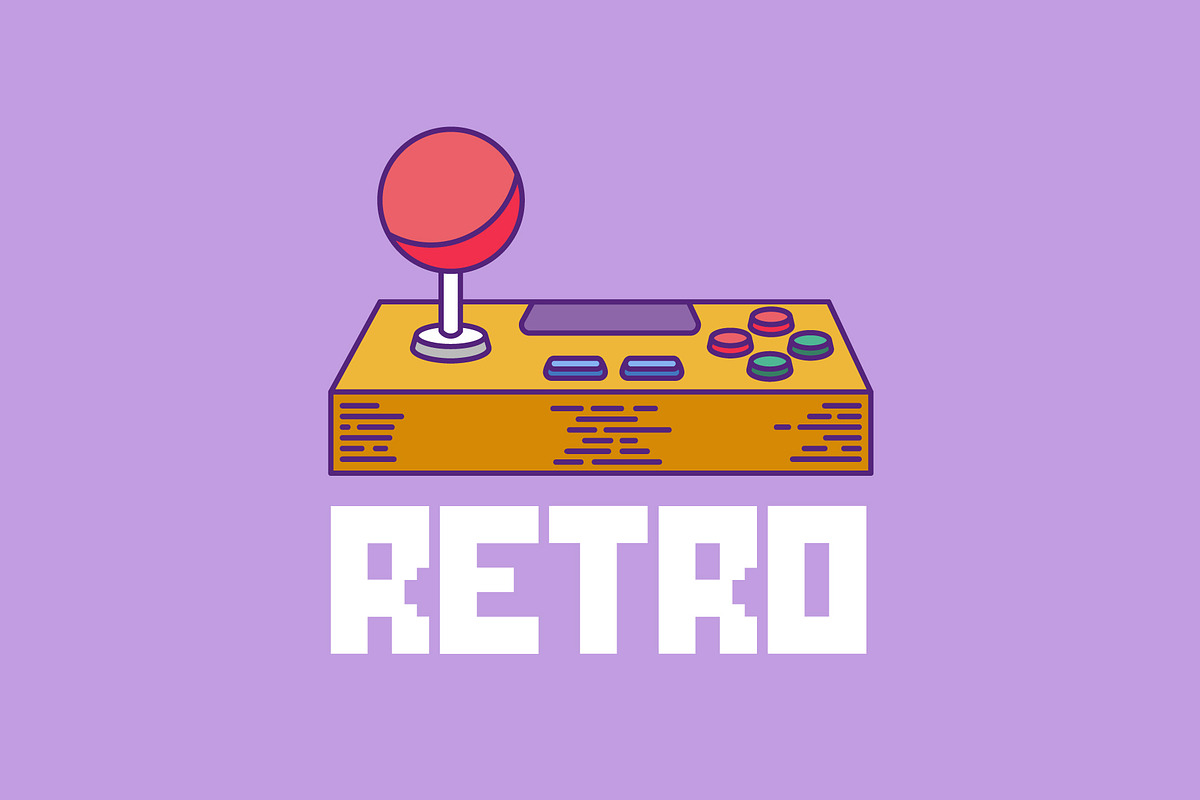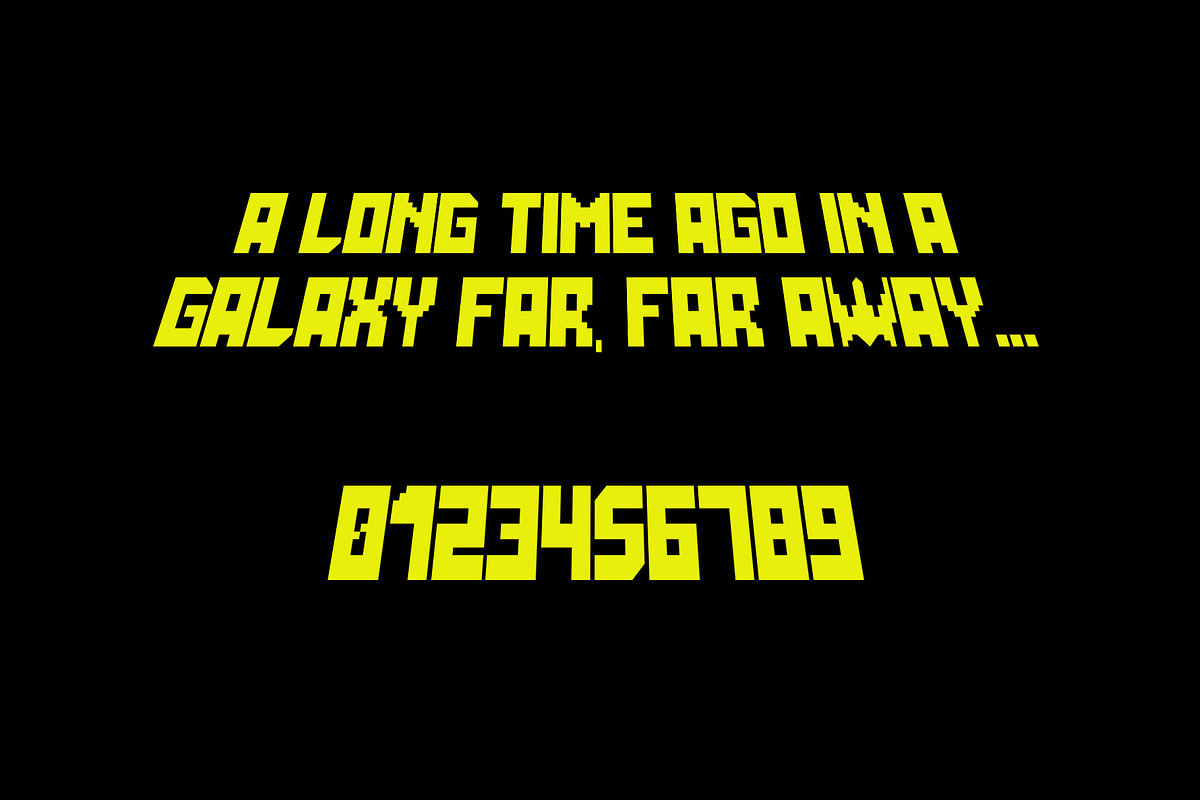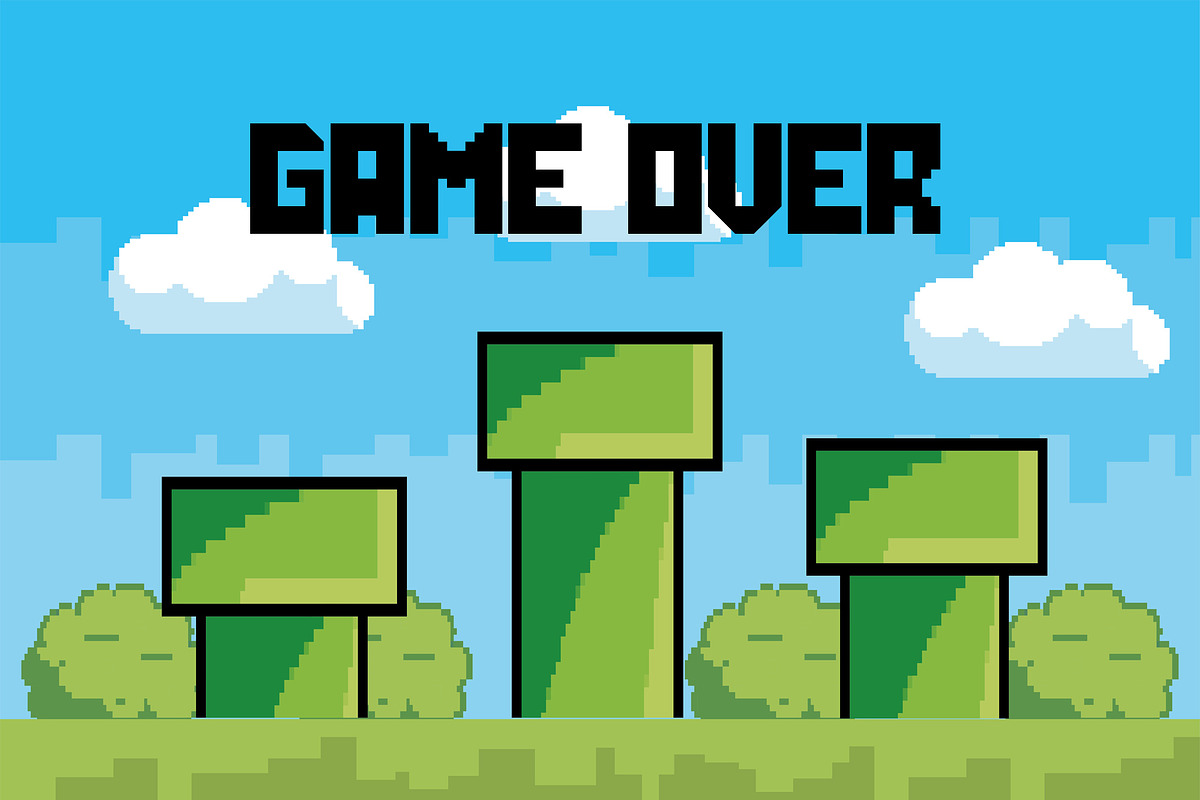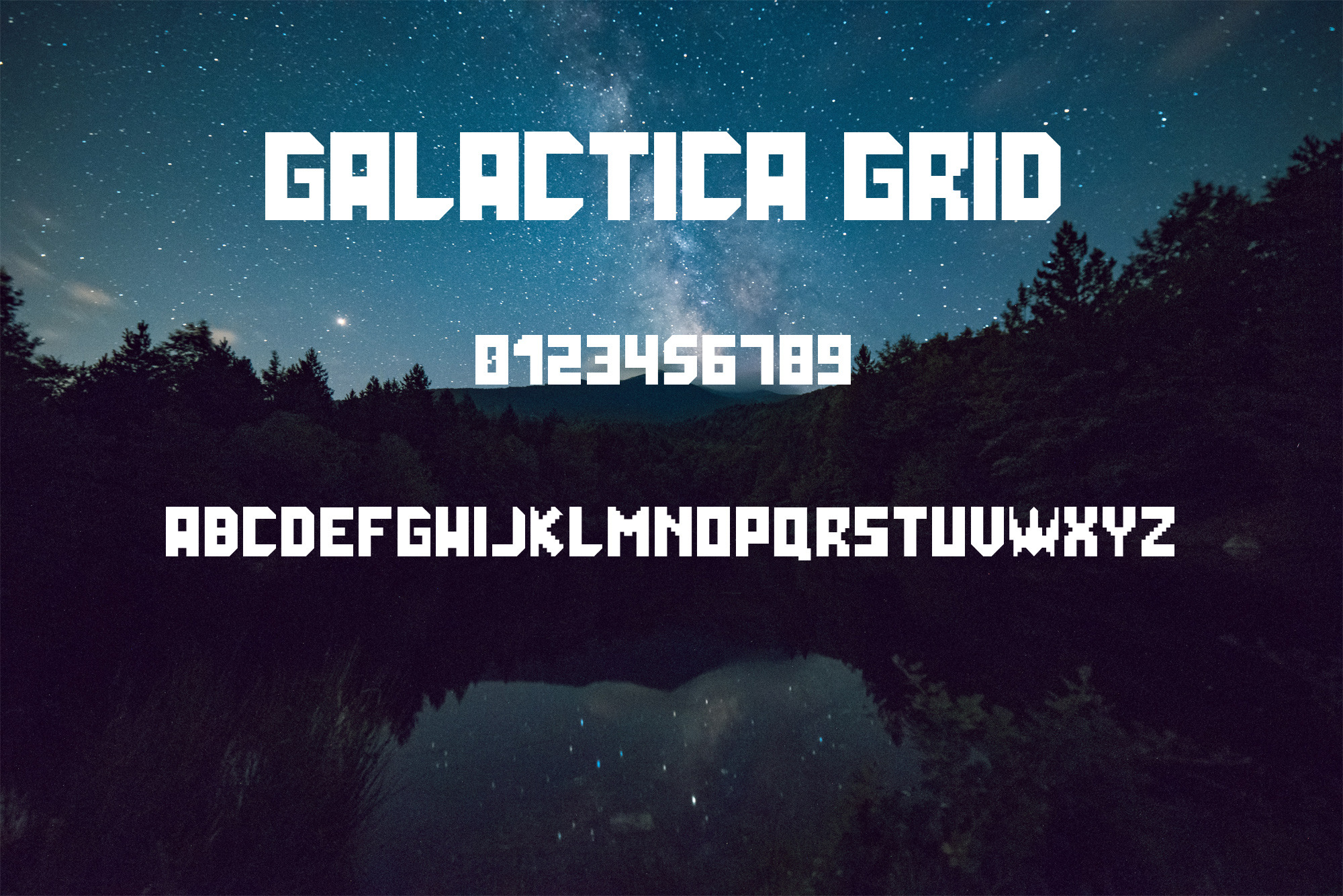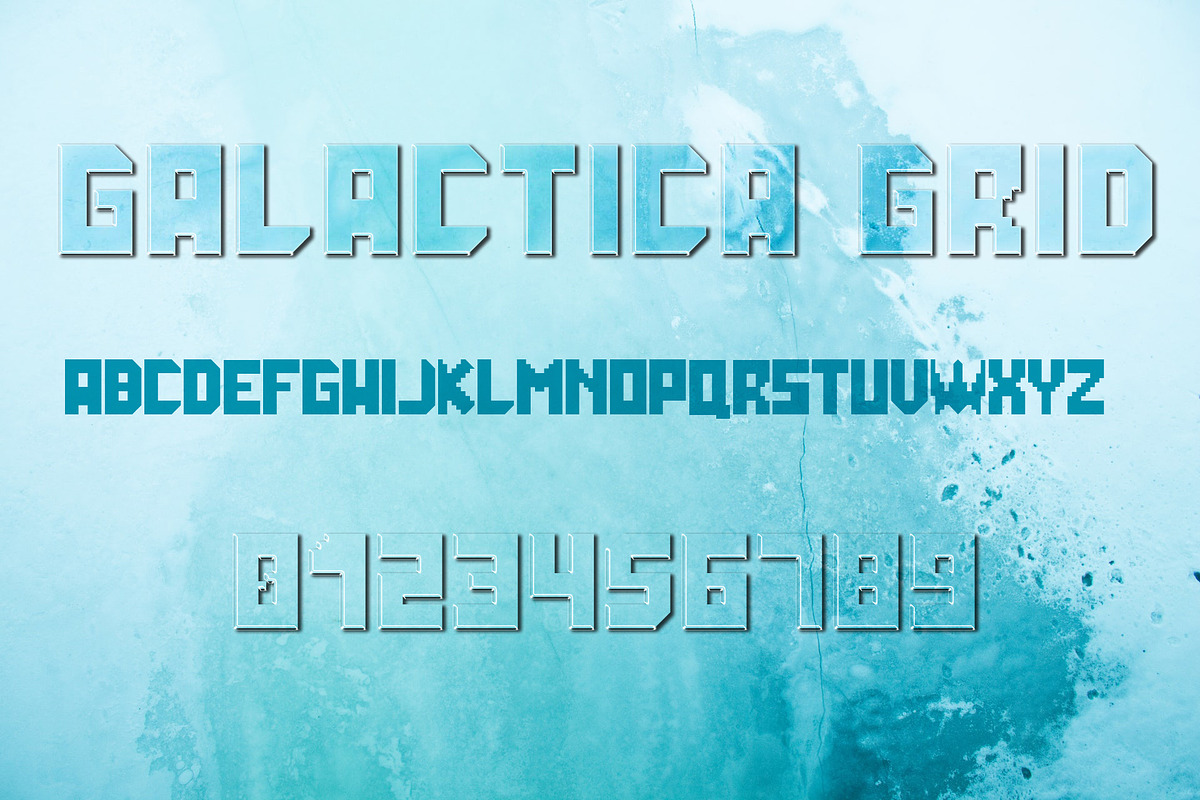
Galactica Grid Font
Galactica Grid - Futuristic Gaming Font.
Galactica Grid is a blocky futuristic gaming font with a powerful, strong sharp corners and a cut out on the inner will emphasize the spirit of the racer within you.
Great for posters, logos, packaging, invitations, gaming, website titles, T-Shirts and more.